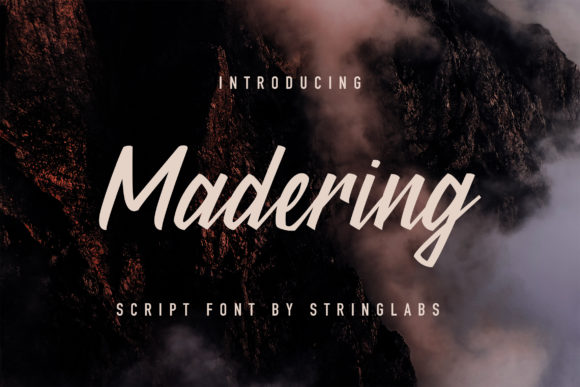
Enter the realm of Madering, a font family that weaves enchantment into every letter and character. This is more than just a collection of fonts; it's an ode to elegance, a tribute to classicism, and an invitation to embark on a creative journey that knows no bounds.
Crafted by the masterminds at StringLabs, Madering is a script font that captures the essence of timeless beauty. Its delicate curves and graceful strokes evoke a sense of nostalgia, harkening back to an era of handwritten letters and ornate manuscripts. Yet, within this classicism lies a subtle touch of modernity, ensuring that Madering remains relevant and captivating in today's digital world.
With Madering, your designs will transcend the ordinary and enter the realm of the truly extraordinary. Picture your logo, emblazoned with Madering's elegant characters, commanding attention and leaving an unforgettable impression on your audience. Envision your packaging, adorned with Madering's intricate flourishes, transforming your products into objects of desire. Imagine your branding, infused with Madering's timeless appeal, elevating your brand identity to new heights of sophistication and distinction.
The versatility of Madering is a testament to its exceptional artistry. Whether you're designing wedding invitations, crafting social media graphics, or creating eye-catching marketing materials, Madering seamlessly adapts to your vision, adding a touch of elegance and sophistication that elevates your designs to new heights.
Indulge in the creative possibilities that await you with Madering. Let your imagination run wild as you explore the endless applications of this remarkable font family. Unlock the secrets of Madering and watch as your designs blossom into masterpieces of creativity and elegance.